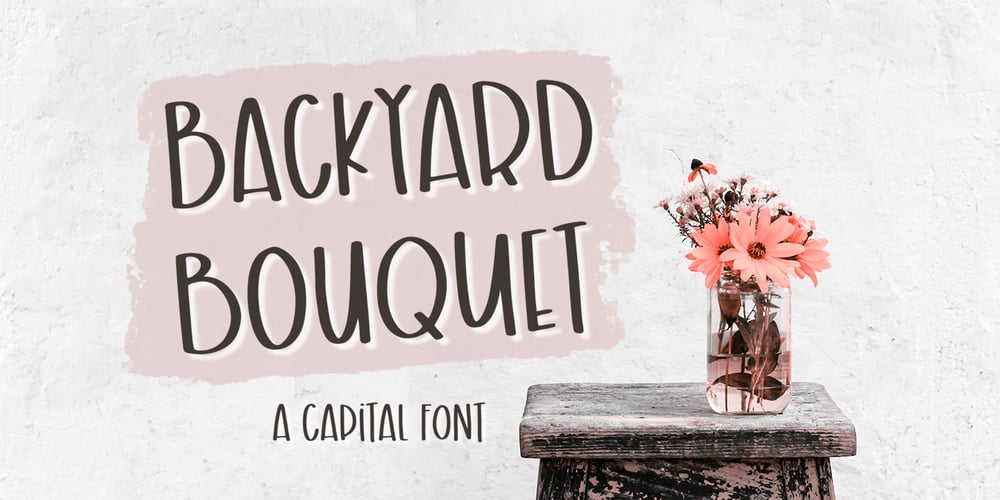
Backyard Bouquet Font Family was designed by Rachel White and published by Rachel White Art. Backyard Bouquet contains 1 styles and family package options. Backyard Bouquet is a breezy hand-lettered caps font. Mix and match caps and lowercase letters to create a hand-lettered look in your designs.